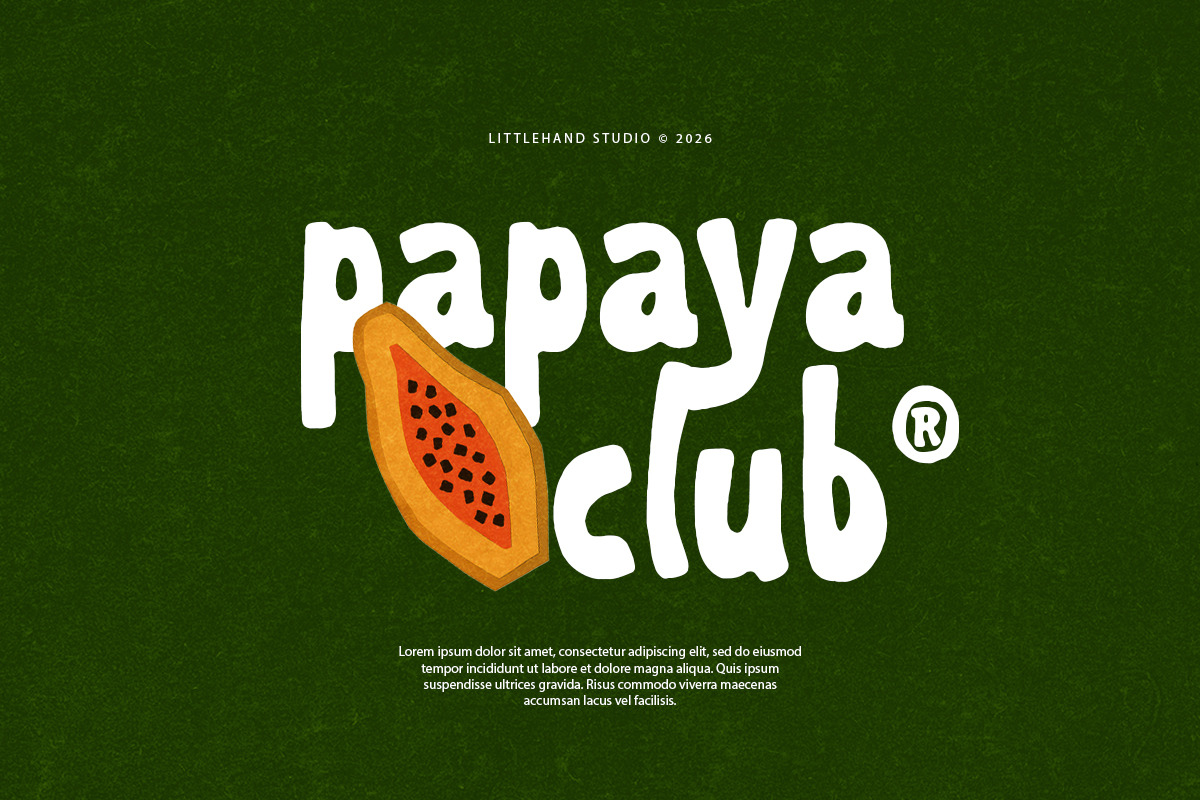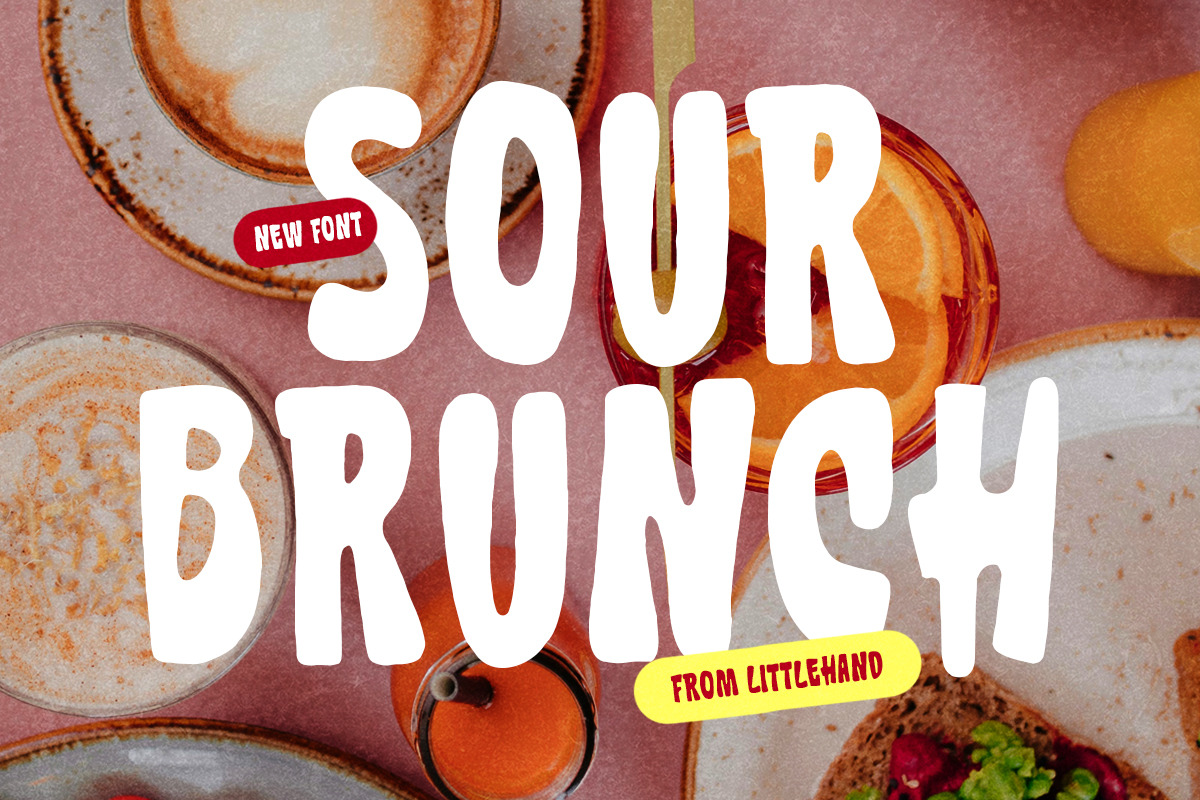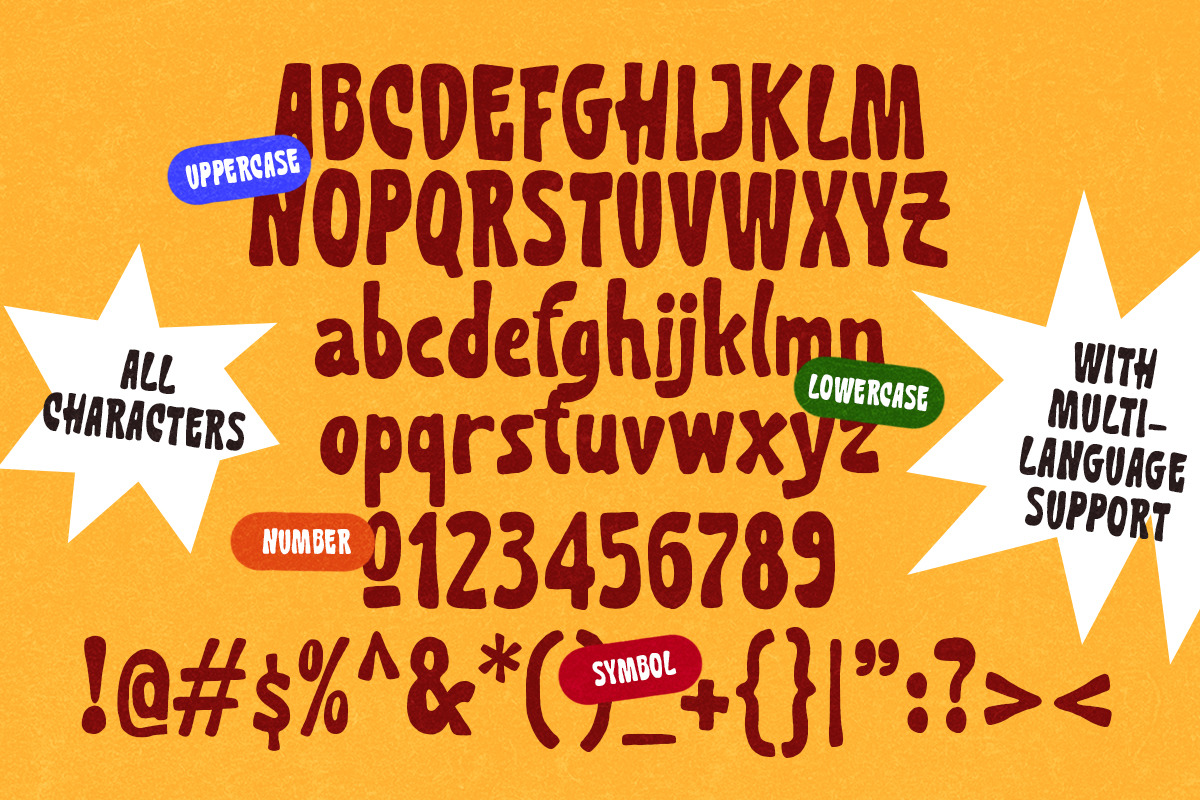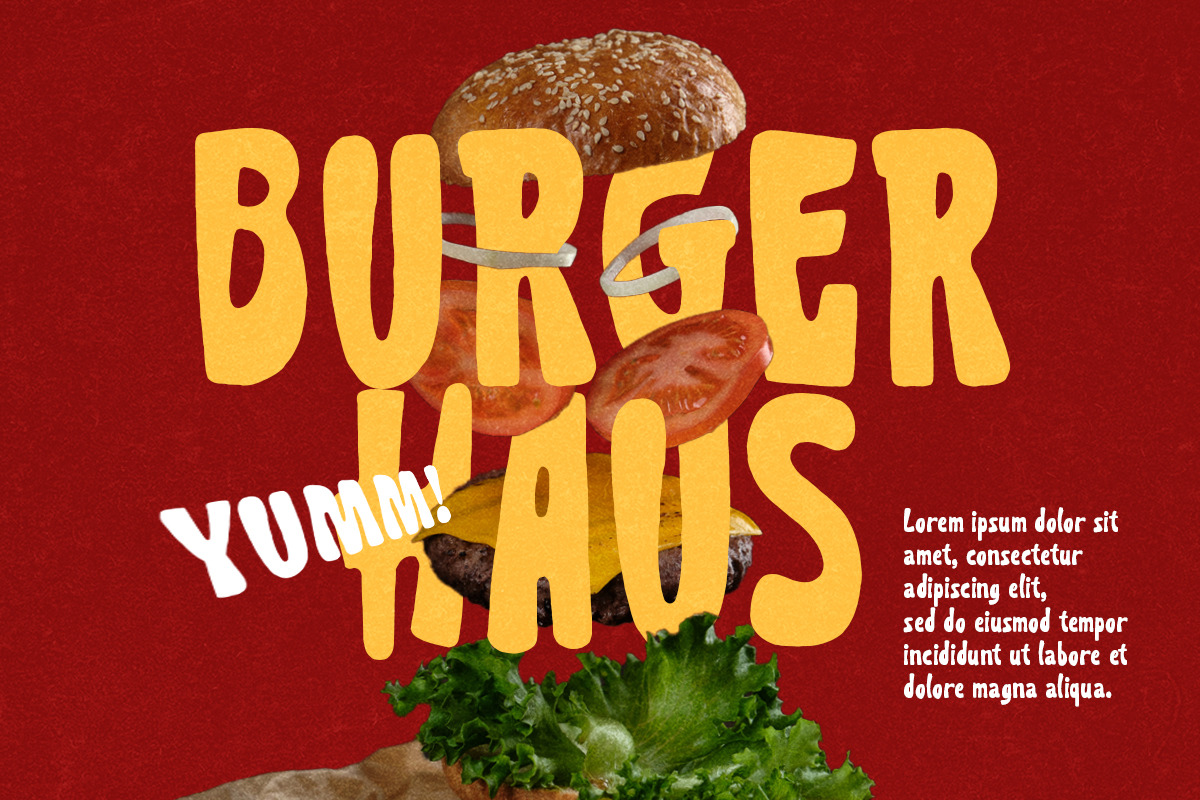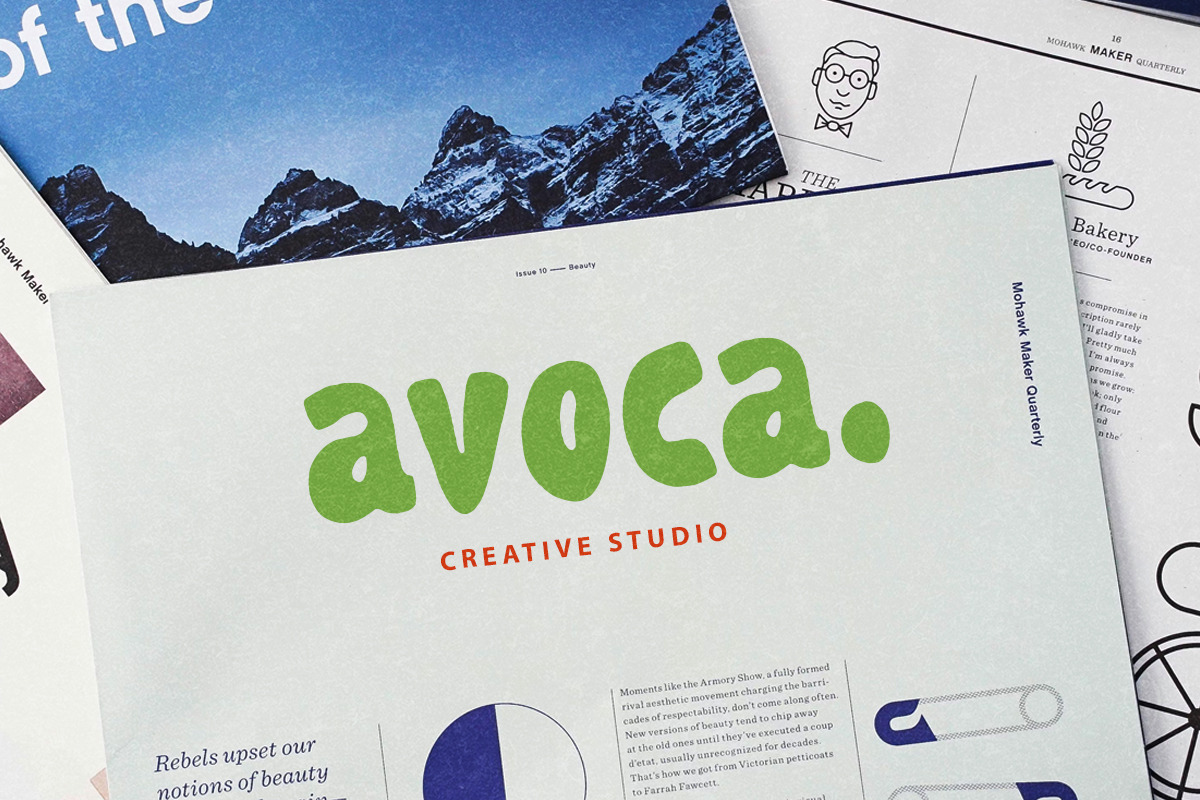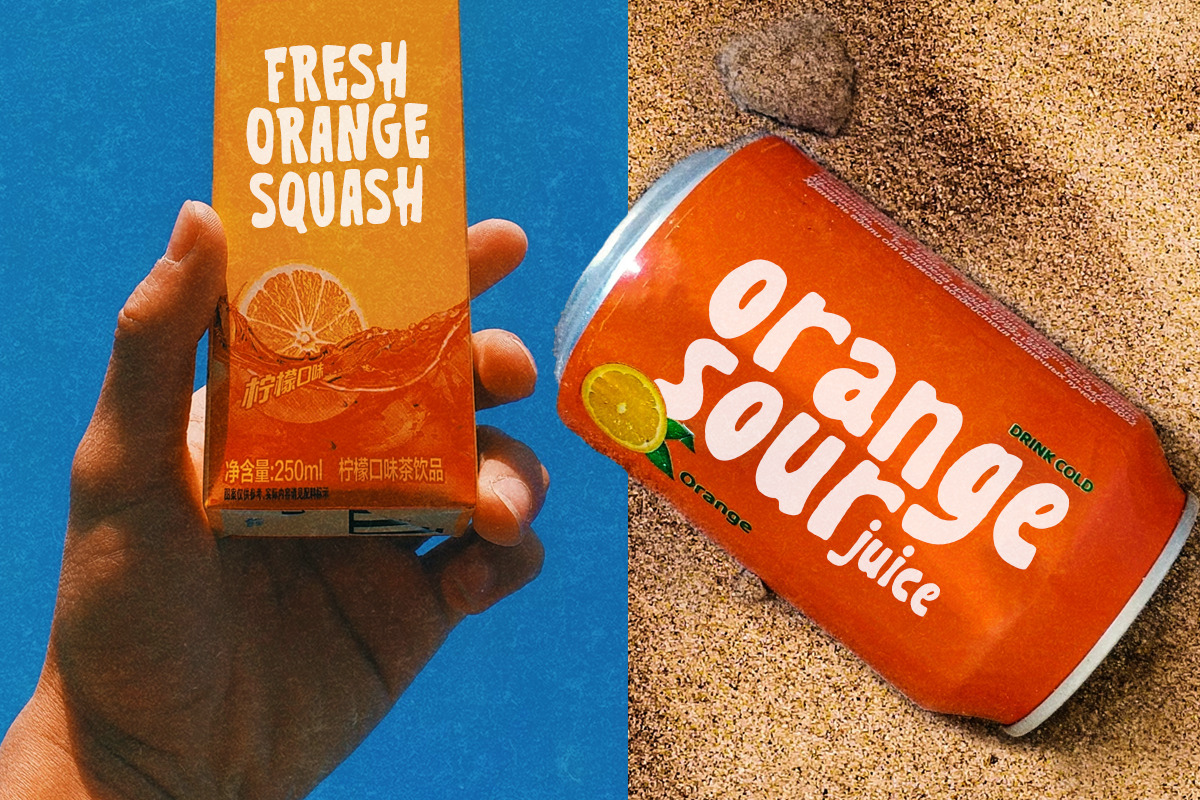
Sour Brunch - Food Display Font
Sour Brunch is a bold, bubbly display font with chunky curves and soft edges, like melted marshmallow on a sunny weekend. the letters feel hand-drawn, imperfect in a charming way, giving it a friendly and playful attitude. this font works great for posters, food branding, café menus, social media graphics, and fun headlines.